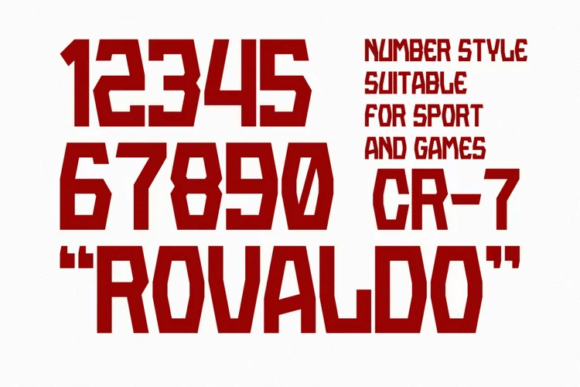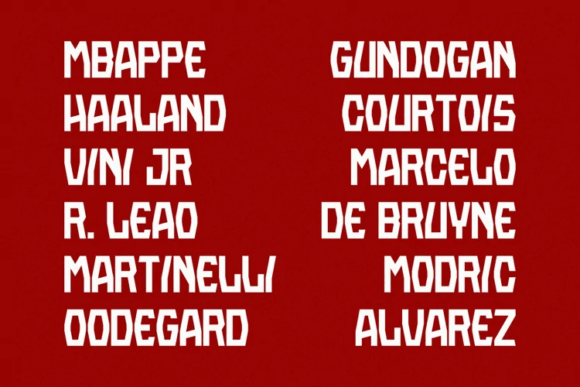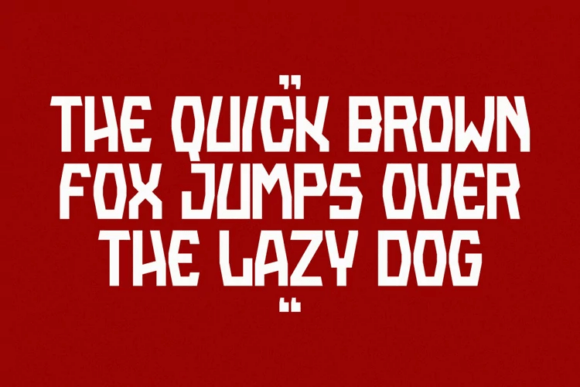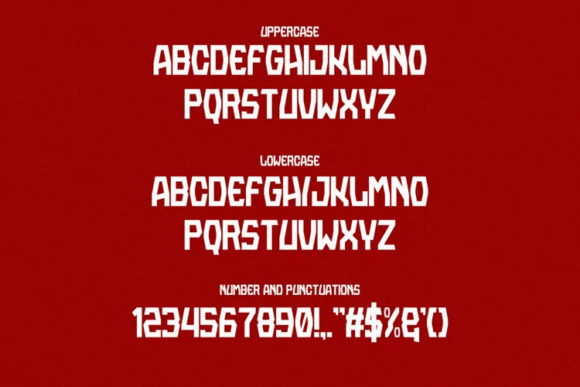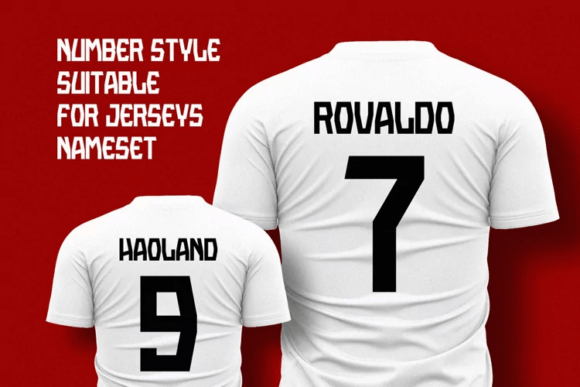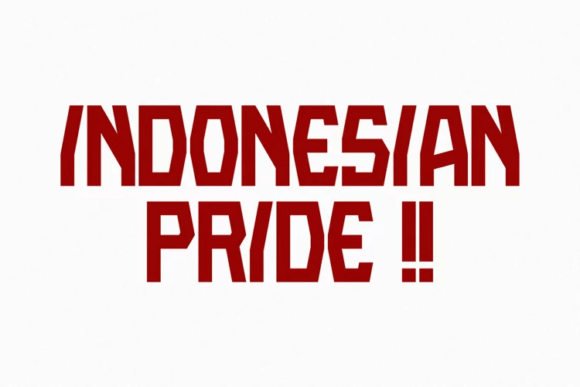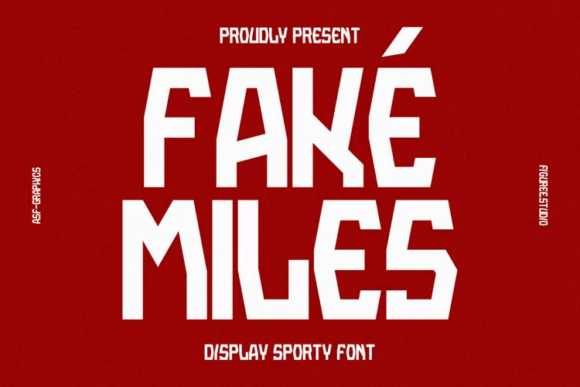
Fakemiles Font: Unleash the Power of Athleticism in Your Designs
In the world of sports, energy, speed, and determination are essential elements that drive athletes to push beyond their limits. As a designer or craftsperson, you understand the importance of capturing this essence in your creations, whether it’s a logo, merchandise, or promotional material. That’s where Fakemiles Font comes in – a dynamically arresting display font designed to radiate power, speed, and athletic prowess.
The Spirit of Athleticism in Every Character
Fakemiles Font is more than just a collection of letters; it’s a bold statement that conveys the vigor and excitement of the sports universe. Each character is carefully crafted to exude a sense of formidable energy, thanks to its robust, angular letterforms and pronounced lines. This font is perfect for designers who want to create sport-inspired creations that electrify and motivate.
Perfect for Sports-Centric Projects
Whether you’re working on a branding project, designing merchandise, or creating promotional posters, Fakemiles Font is an excellent choice. Its bold and dynamic design makes it ideal for headlines, titles, and short phrases that require attention-grabbing typography. With Fakemiles, you can:
- Create stunning logos that capture the essence of athleticism
- Design eye-catching merchandise, such as t-shirts, hats, and water bottles
- Develop promotional posters that energize and motivate
- Enhance your sports-themed branding with a bold and dynamic font
Key Features of Fakemiles Font
So, what makes Fakemiles Font stand out from other display fonts? Here are some key features that make it an excellent choice for sports-inspired designs:
- Robust and Angular Letterforms: Fakemiles features bold, angular letterforms that convey strength and determination.
- Pronounced Lines: The font’s pronounced lines add to its dynamic and energetic feel.
- Dynamic and Arresting: Fakemiles is designed to grab attention and radiate energy, making it perfect for headlines and titles.
- Athletic Prowess: The font’s design is inspired by the world of sports, making it an excellent choice for sports-centric projects.
Tips for Using Fakemiles Font
To get the most out of Fakemiles Font, here are some tips to keep in mind:
- Use it for Headlines and Titles: Fakemiles is perfect for grabbing attention, so use it for headlines and titles that require bold typography.
- Experiment with Colors: The font’s bold design works well with a variety of colors, so don’t be afraid to experiment and find the perfect combination.
- Pair it with Other Fonts: Fakemiles can be paired with other fonts to create a unique and dynamic design.
- Pay Attention to Kerning: As with any font, pay attention to kerning to ensure that your text looks professional and polished.
Fakemiles Font is a powerful tool for designers and craftspersons who want to create sport-inspired creations that radiate energy, speed, and athletic prowess. With its robust, angular letterforms and pronounced lines, this font is perfect for sports-centric projects, from branding to merchandise designs and promotional posters. By incorporating Fakemiles into your design arsenal, you’ll be able to create stunning designs that electrify and motivate.